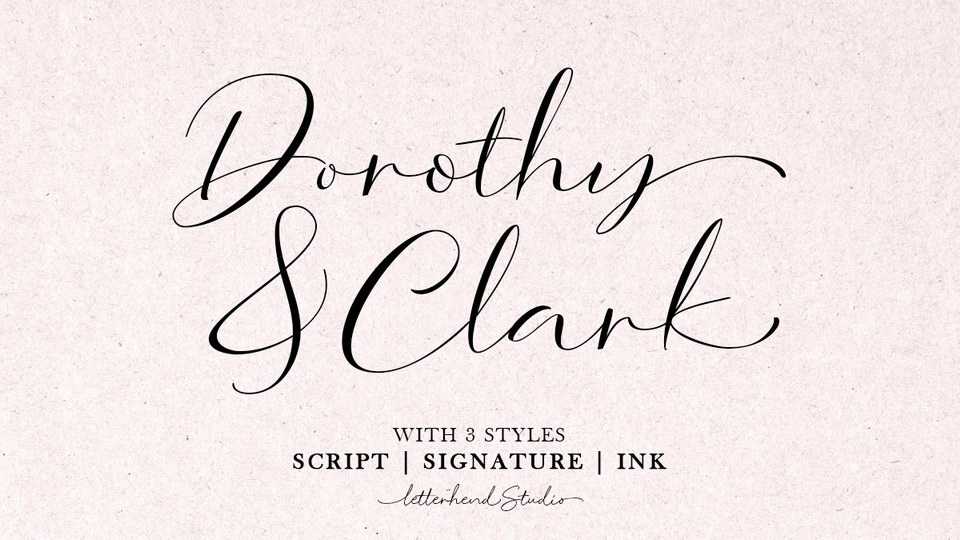
Download Dorothy Clark font, an incredibly stylish and contemporary script. Dorothy Clark perfectly made to be applied to logo, and the other various formal forms such as invitations, greeting and wedding cards, fashion, social media and more.